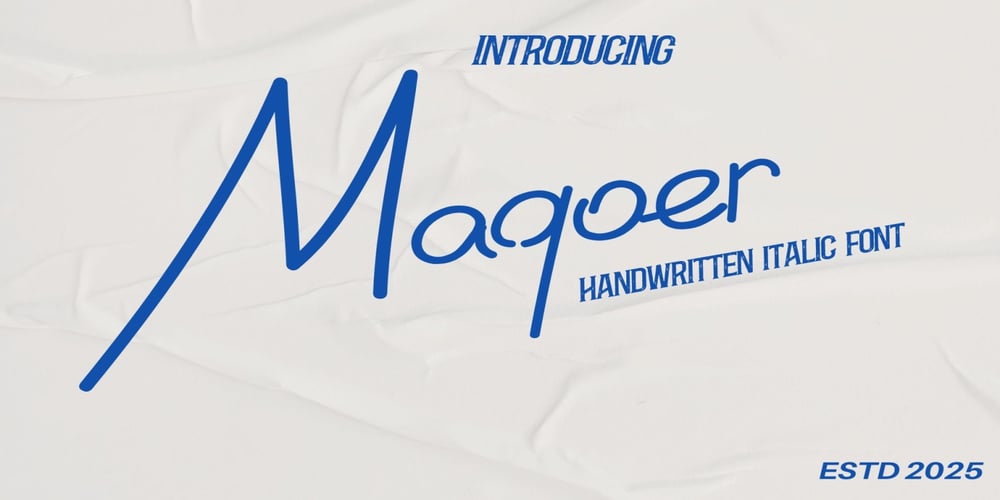
Maquar
Maquar font
Maquar Font Family was designed by Alan Withers and published by Dream Font. Maquar contains 1 styles and family package options. Maqoer is a beautiful handwriiten signature font. Made for any professional project branding. Every letter has a unique and beautiful touch. Made from our talented designer. Use Breathing for various designs, such as posters, banners, logos, book covers, headings, printed products, merchandise, social media, and more. Find out more ways to use this font by taking a look at the font preview.